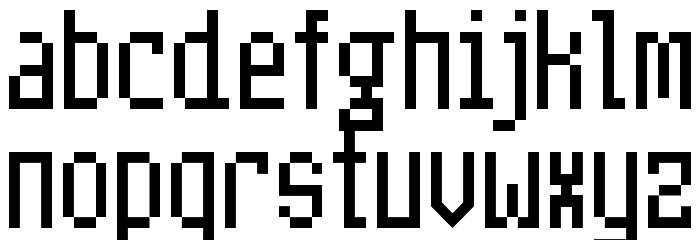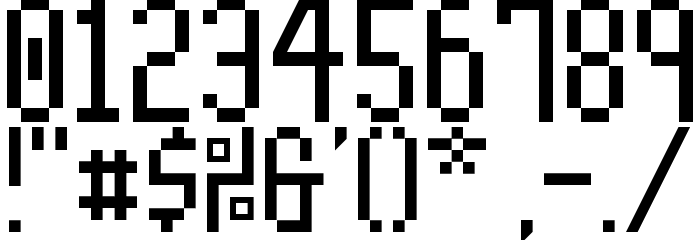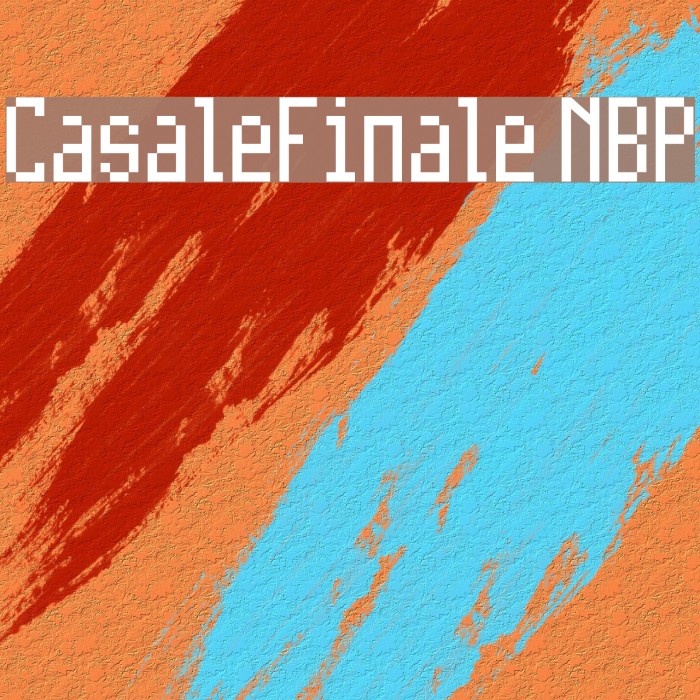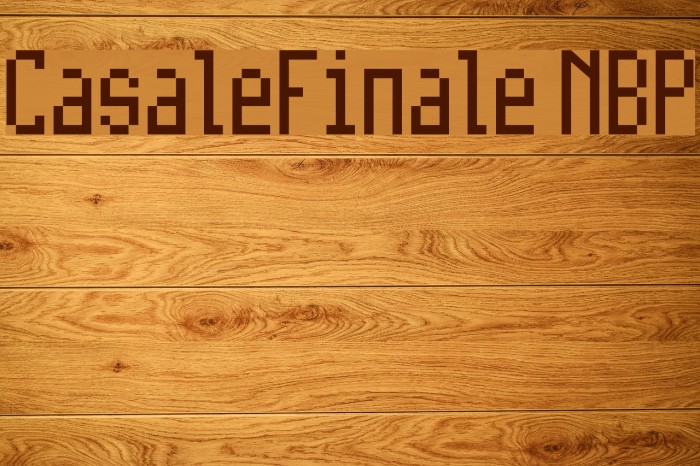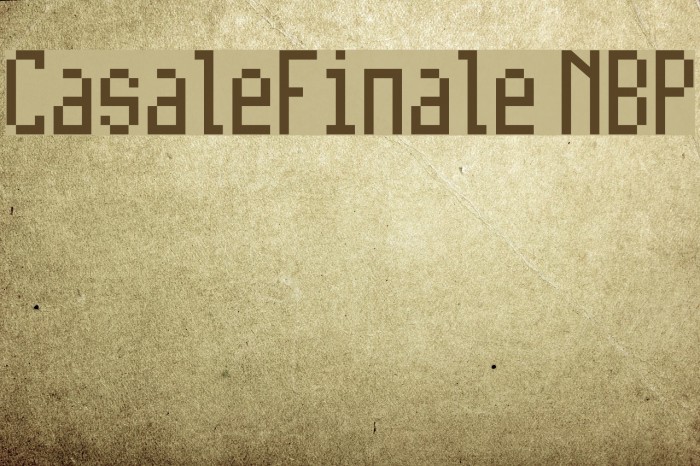
CasaleFinale NBP Font
This font features a pixelated, blocky design reminiscent of early computer or video game graphics. Each character is constructed with a grid-like precision, giving it a distinctly digital and retro aesthetic. The uppercase and lowercase letters maintain a consistent height, contributing to a uniform appearance. Numbers and special characters follow the same pixelated style, ensuring cohesiveness across all glyphs. The font's geometric structure makes it highly legible, even at smaller sizes, while its nostalgic charm adds a playful touch to any design.
A pixelated, retro-style font with a blocky, digital appearance.
- Proposed Projects: Ideal for video game design, retro-themed posters, digital art projects, and any creative work that requires a nostalgic, tech-inspired look.
- Overall Style: Retro, Digital
- Use Case: Headlines, Logos, Digital Art